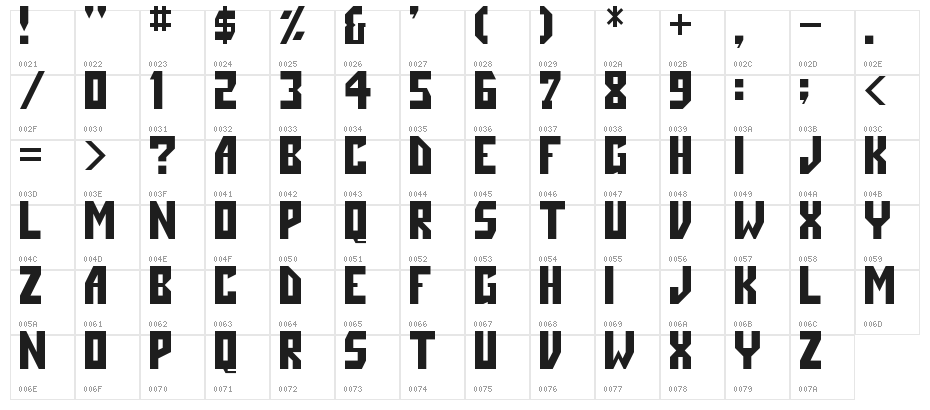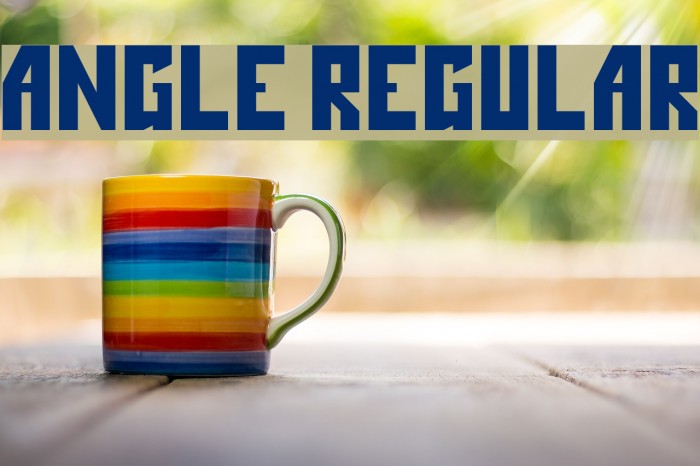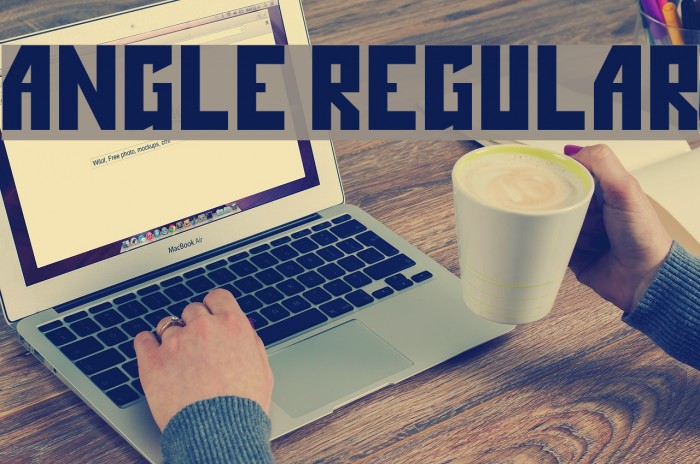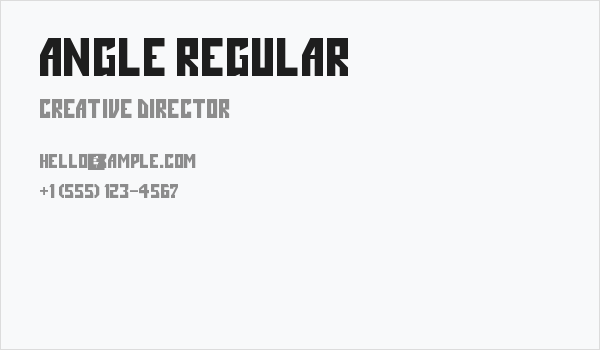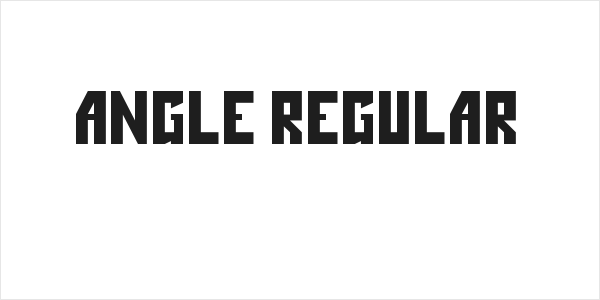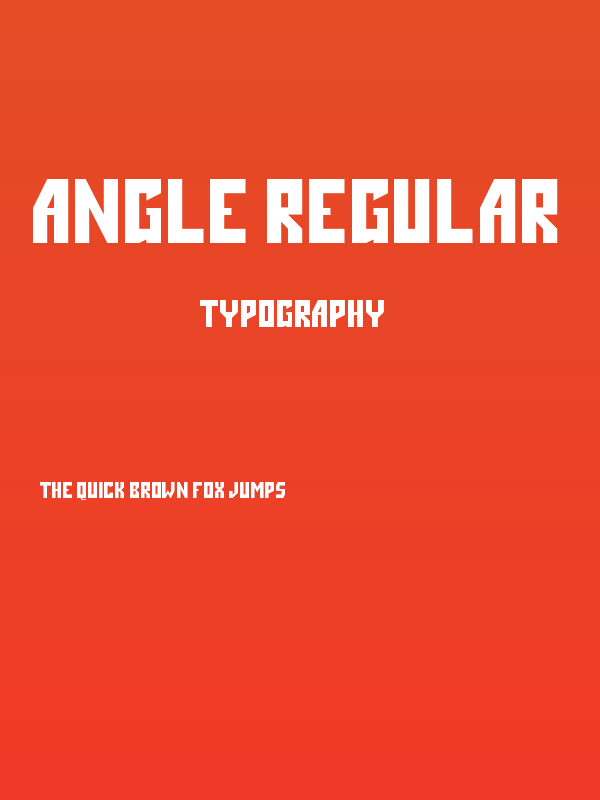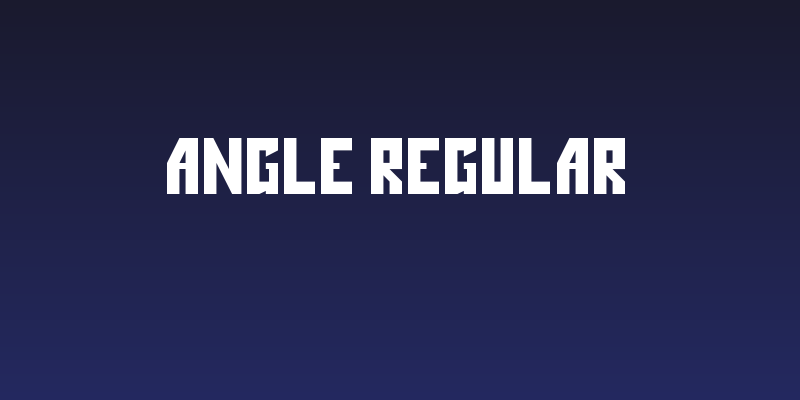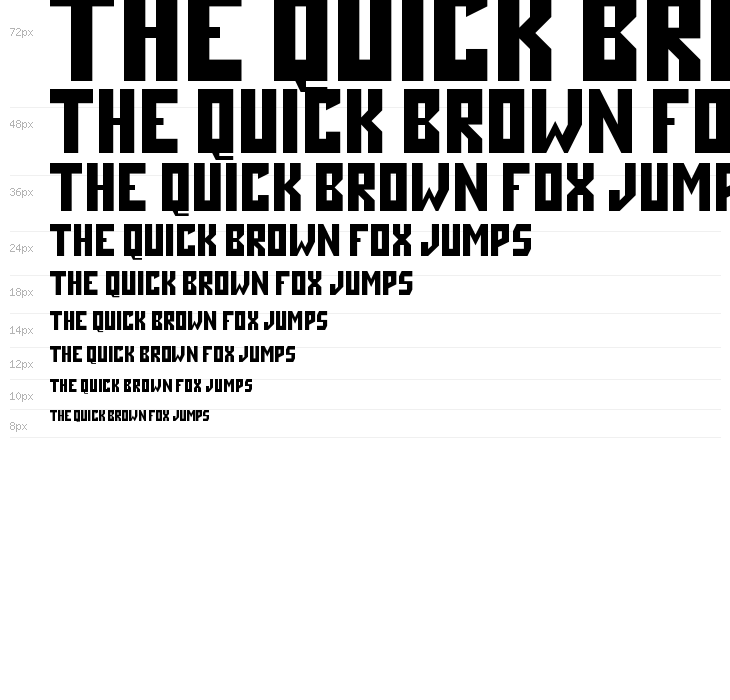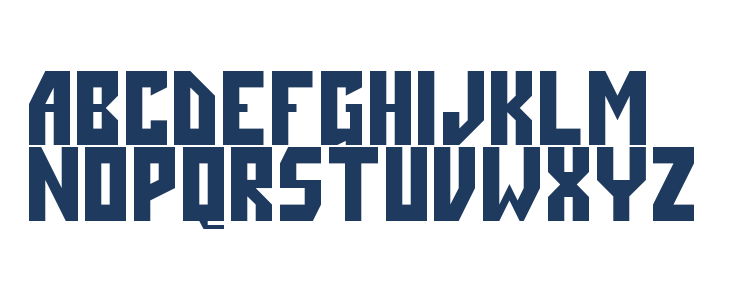
Angle Regular Font
Angle Regular Description
This font features a bold, geometric design with sharp angles and a strong presence. The characters are constructed with a blocky, almost futuristic style, emphasizing straight lines and sharp corners. The uppercase and lowercase letters maintain a consistent height, giving the font a uniform appearance. Numbers and special characters follow the same angular theme, ensuring a cohesive look across all glyphs. The font's design is striking and modern, making it suitable for attention-grabbing headlines or branding that requires a bold statement.
| Proposed Projects | Ideal for use in branding, posters, and headlines where a strong, modern impact is desired. |